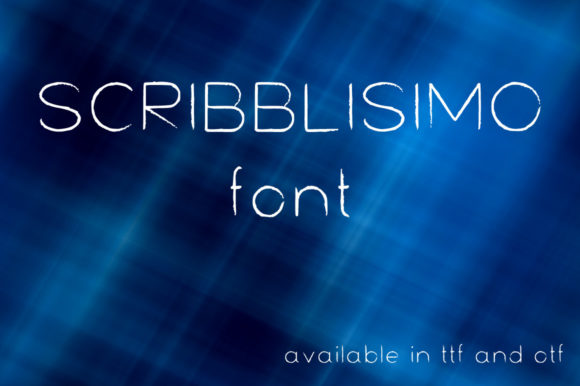
Prepare to be captivated by Scribblisimo, the display font that exudes elegance and sophistication. As a masterpiece crafted by florintenica, this thin and simple lettered font gracefully adorns any design, leaving a lasting impression.
Unleash your creativity and let the beauty of Scribblisimo transform your web designs, business cards, and countless other creations. Its delicate strokes effortlessly convey a touch of uniqueness, ensuring your designs stand out from the crowd.
With Scribblisimo at your disposal, you'll have the perfect font for capturing the essence of your brand. Its timeless appeal adds a touch of refinement to any logo, making it an ideal choice for businesses seeking to establish a memorable identity.
Experience the allure of a font that sparks imagination and evokes emotions. Scribblisimo invites you to explore a world where elegance and simplicity intertwine, giving birth to designs that are both visually stunning and deeply impactful.
Don't settle for ordinary fonts that blend into the background. Embrace the power of Scribblisimo, the display font that transforms your designs into works of art. Let its thin and delicate strokes weave a tale of sophistication, ensuring your creations captivate and inspire.
Indulge in the beauty of Scribblisimo today and discover how this exquisite font can elevate your designs to new heights of elegance.